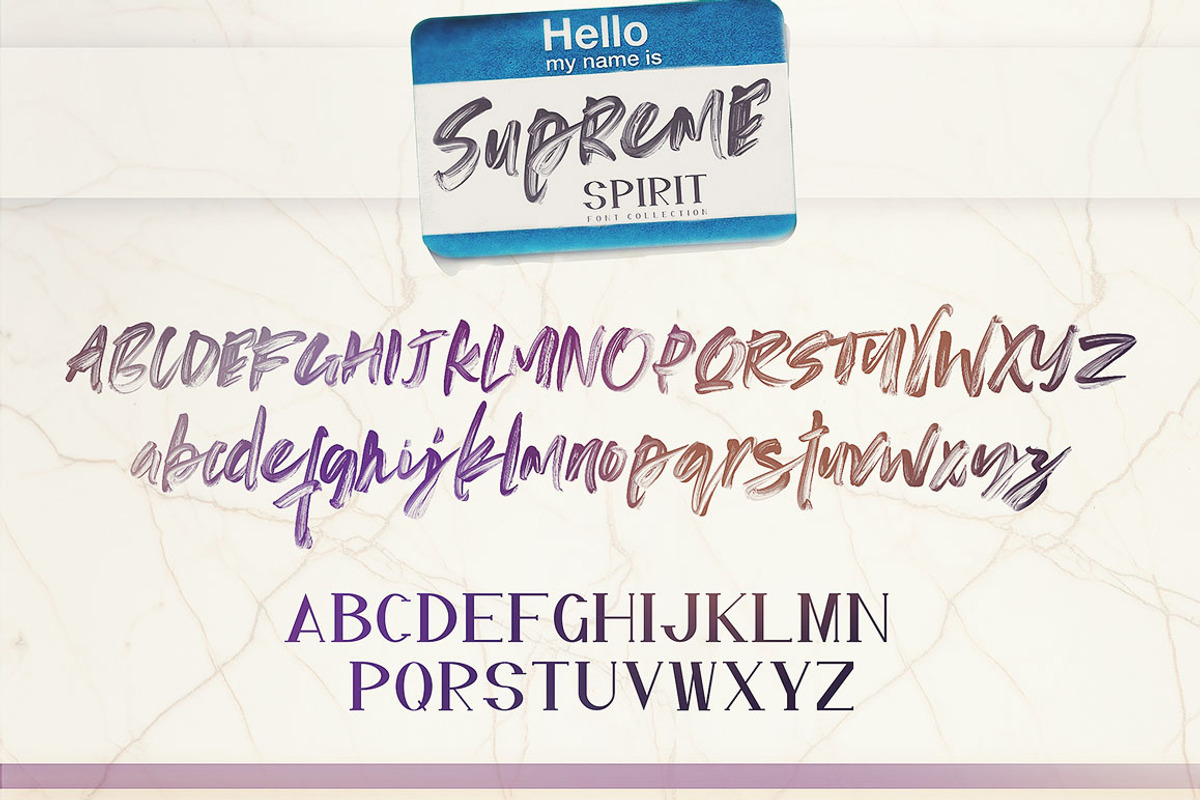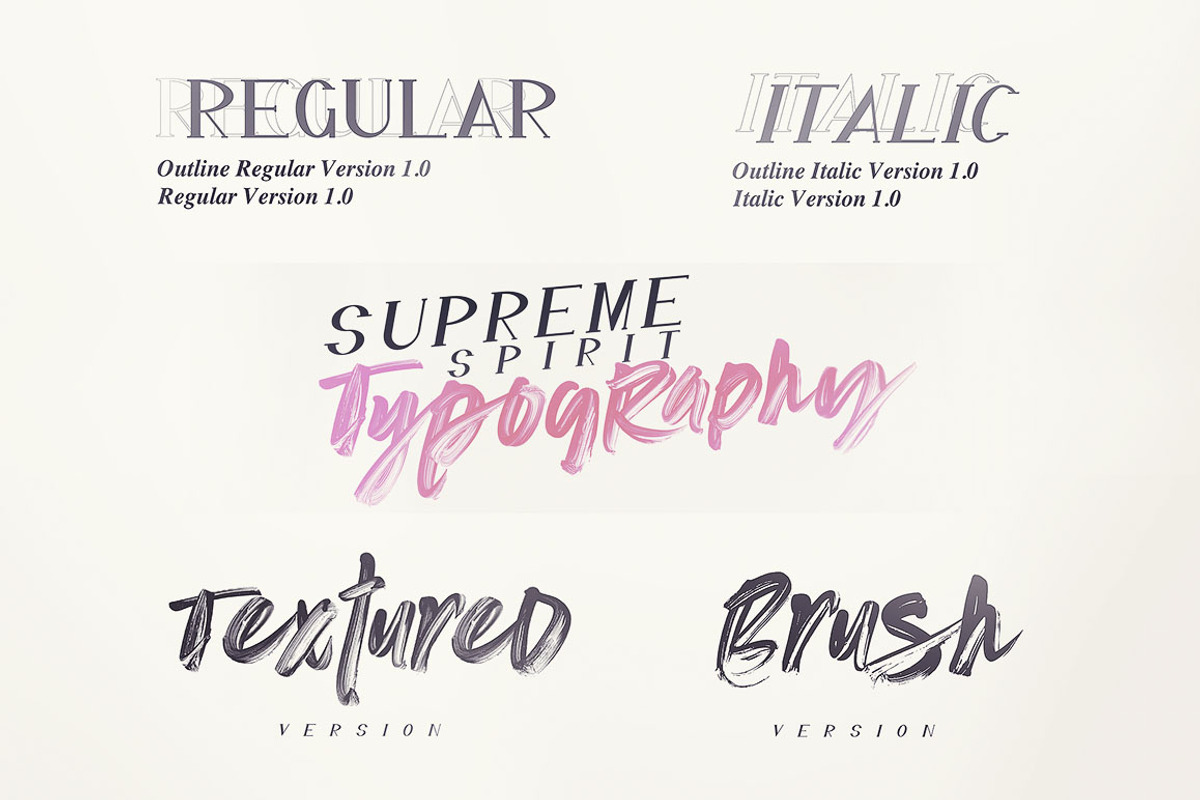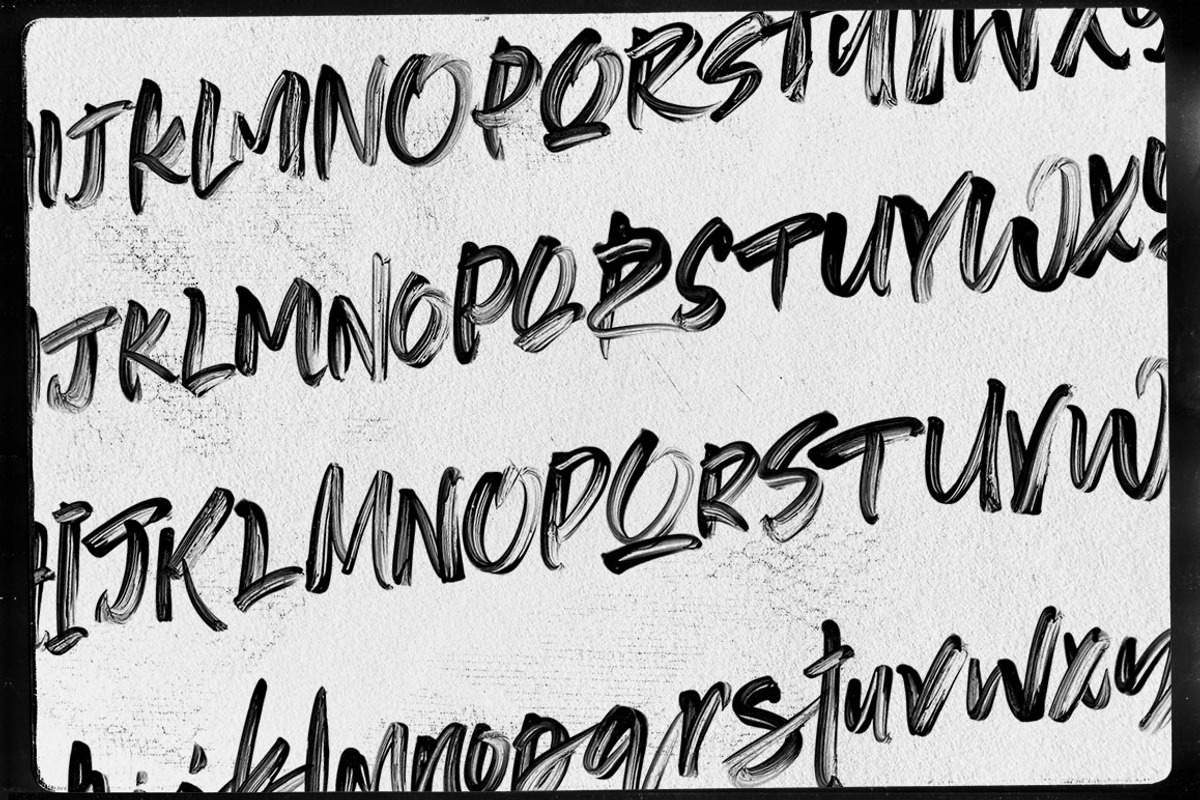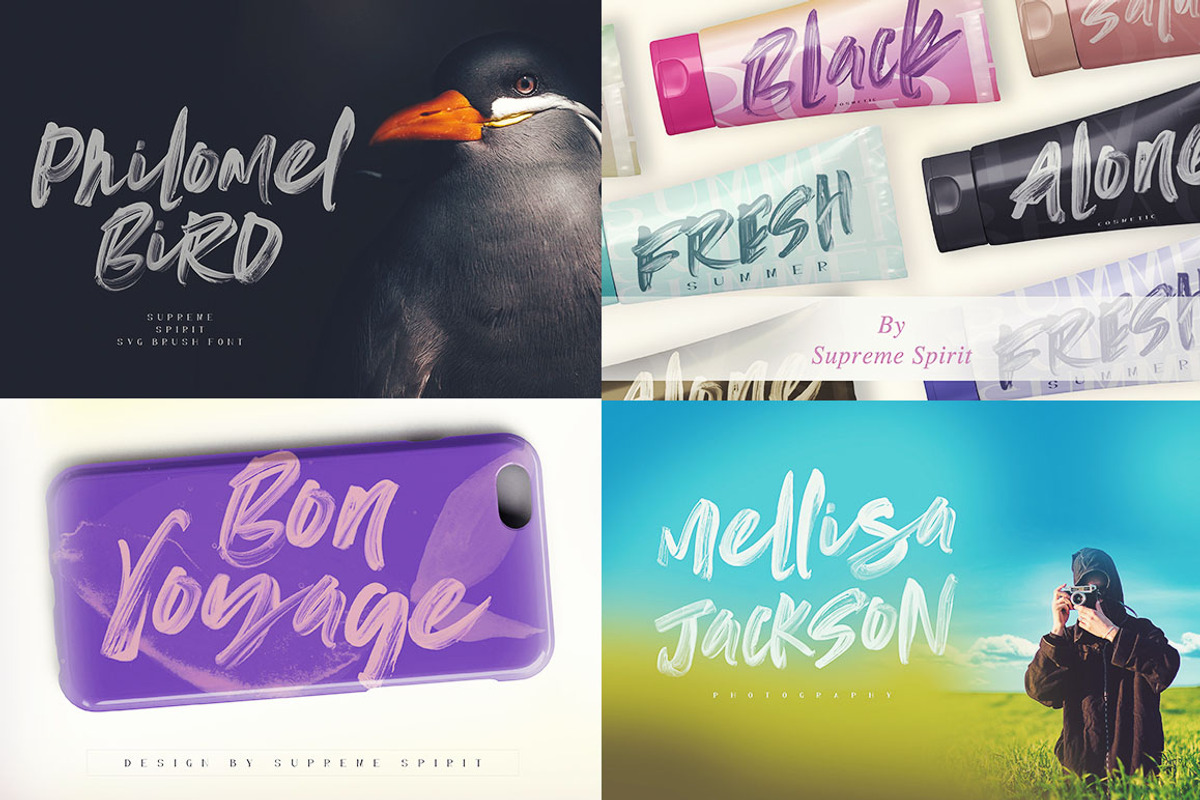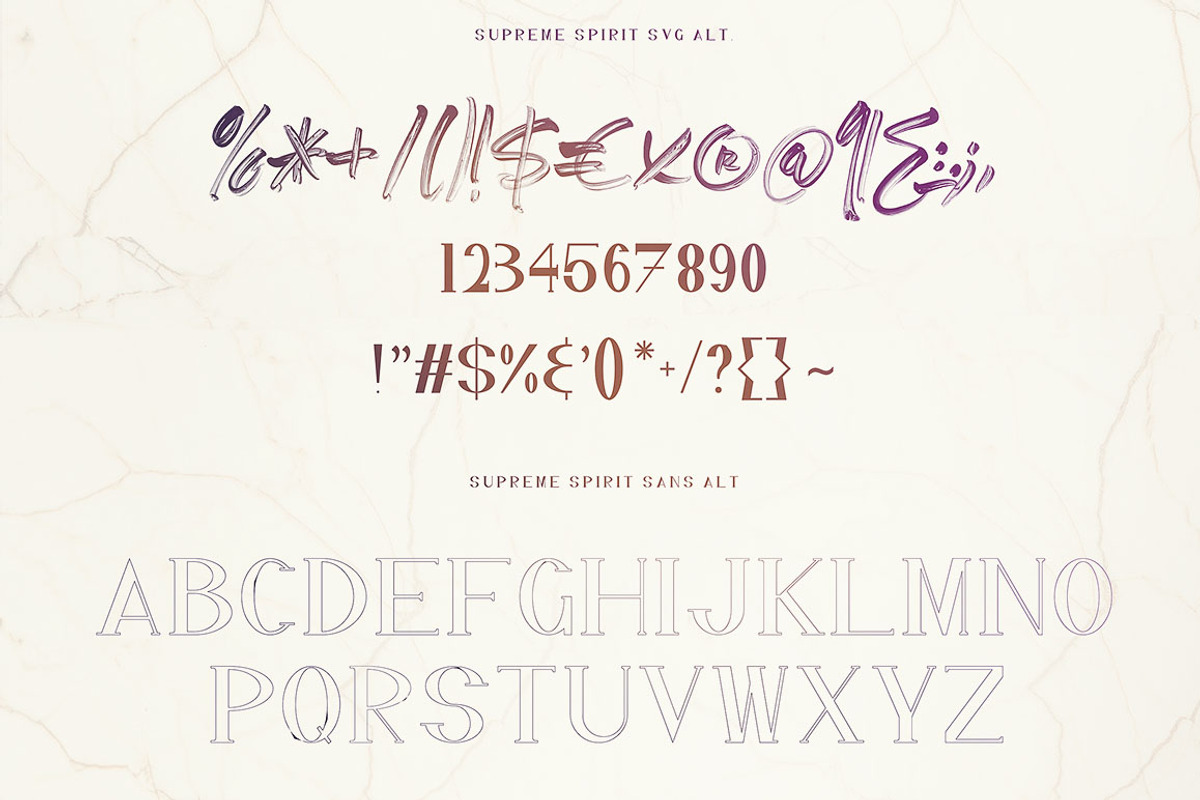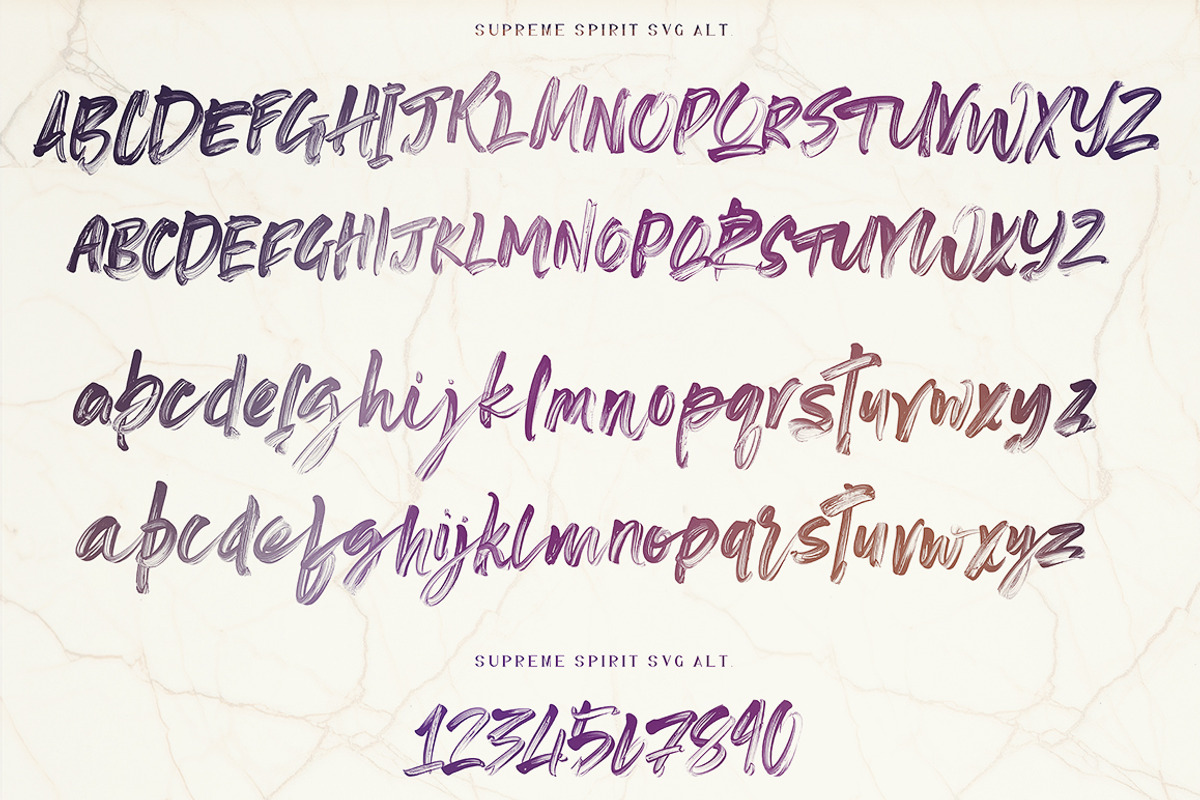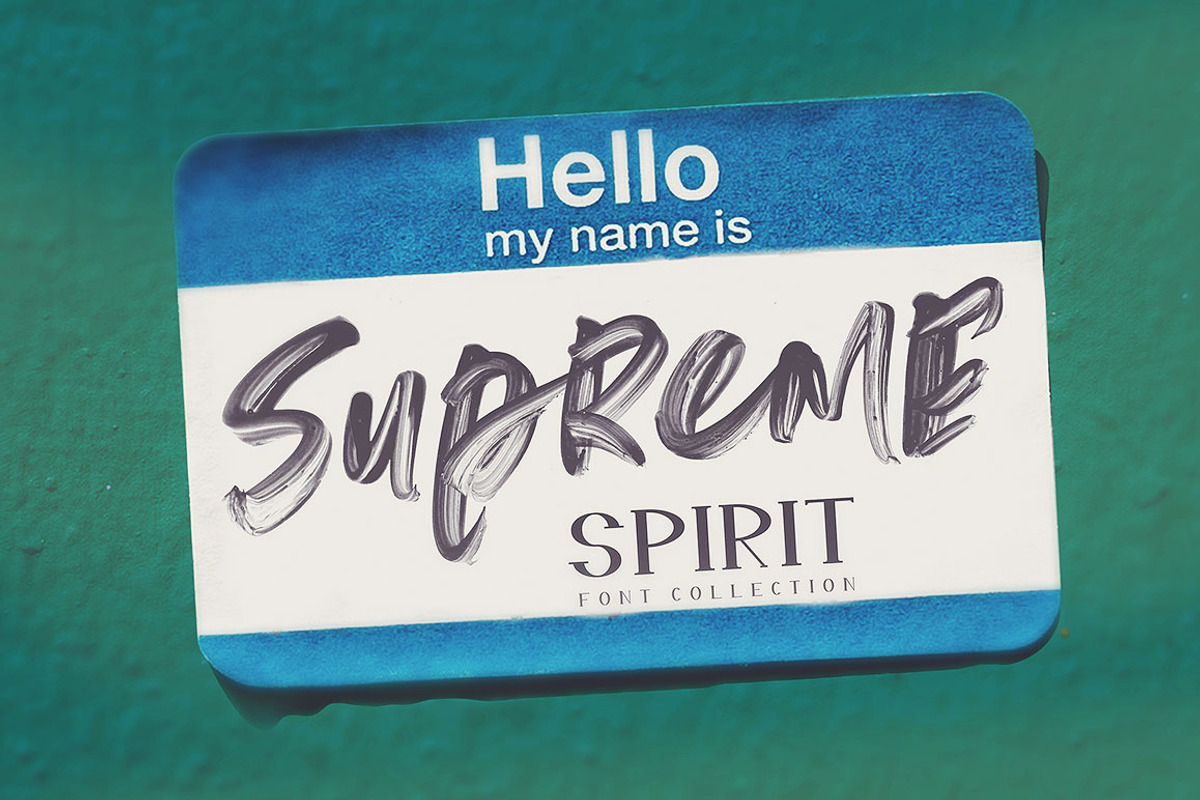
Supreme Spirit Brush Font
Brush or grunge style display font for your new projects. Great for grunge or artistic projects!
Why Supreme Spirit Brush Font is worth a look
Supreme Spirit Brush Font by Cruzine fits naturally into Branding, posters, packaging, typography.